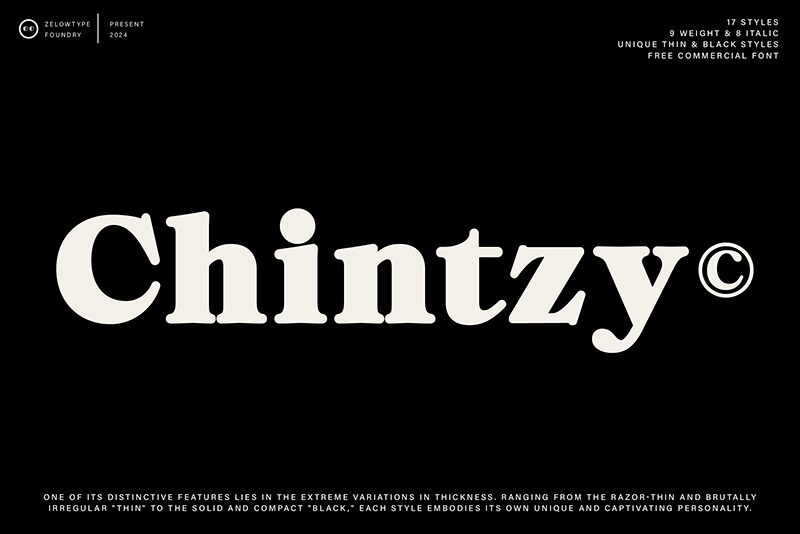
ZT Chintzy, designed by Zelow Type, pays homage to the expressive, soft, and rounded serif typography of the 1960s and 1970s era. Its gentle and captivating serifs evoke a sense of warmth and nostalgia, reminiscent of that era's iconic typefaces. The font's expanded, bold weight lends it a distinctive, eye-catching presence, making it a standout choice for any design project.
This versatile font lends itself well to a variety of applications, from retro-inspired branding and packaging design to eye-catching headlines and editorial layouts. Its unique character and design features make it an ideal choice for projects seeking to capture a sense of vintage charm and timeless appeal, whether in print or digital mediums.
Features of the "ZT Chintzy" font include:
- 9 Plain Weights & 8 Italic Weights
- Expanded Latin Character Set
- Standard Ligatures + Discretion
- Stylistic Alternatives
- Punctuation & Symbols
- Over 487 Unique Characters
- Elegant Serif Style
ZT Chintzy Heavy
"ZT Chintzy" pays homage to the expressive, soft, and rounded serif typography of the 1960s and 1970s era. Its gentle and captivating serifs evoke warmth and nostalgia reminiscent of that era's typefaces.
As a bold vintage-style serif font, "ZT Chintzy" boasts strong characters and subtle features. Equipped with alternatives, stylistic variations, and several standard ligatures, the font offers extensive versatility. With 17 styles available, including 8 different weights, "ZT Chintzy" caters to a wide range of design needs.
One of its distinctive features lies in the extreme variations in thickness. Ranging from the razor-thin and brutally irregular "Thin" to the solid and compact "Black," each style embodies its own unique and captivating personality.
Special features of the font include standard ligatures and discretion, alternative styles, as well as the addition of punctuation and symbols. With over 487 unique characters, "ZT Chintzy" adds richness and depth to every design you create.
Features of the "ZT Chintzy" font include:
9 Plain Weights & 8 Italic Weights
Expanded Latin Character Set
Standard Ligatures + Discretion
Stylistic Alternatives
Punctuation & Symbols
Over 487 Unique Characters
Elegant Serif Style